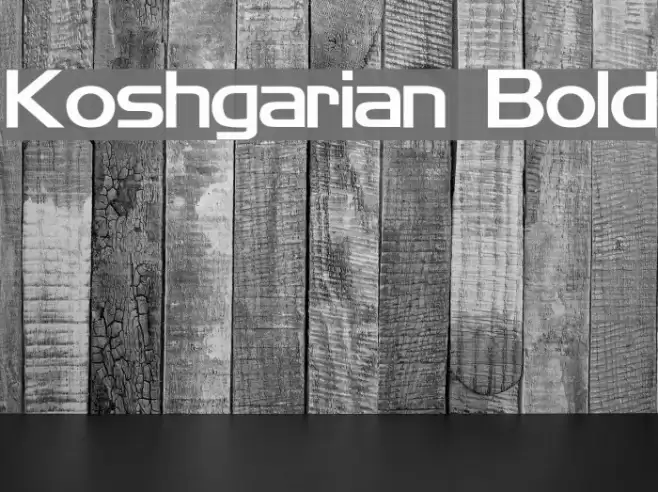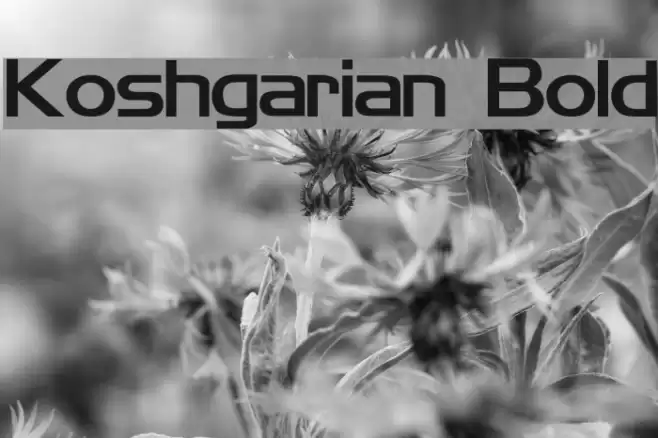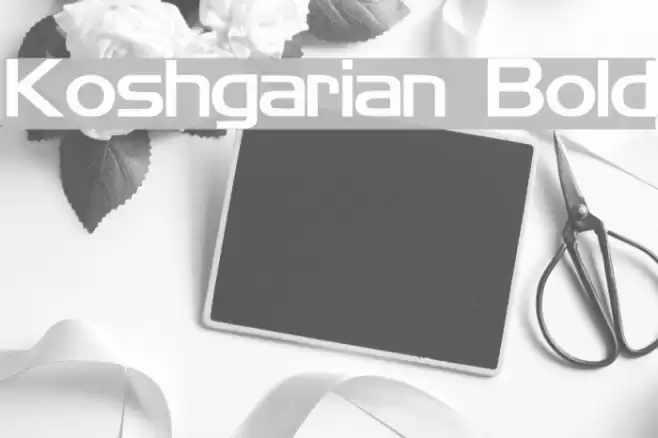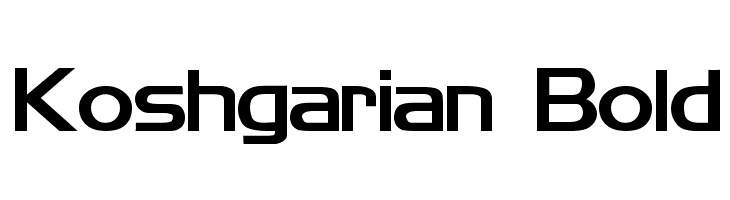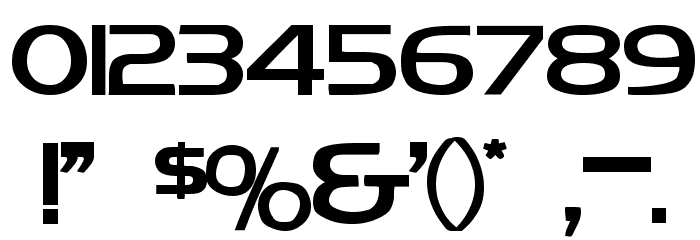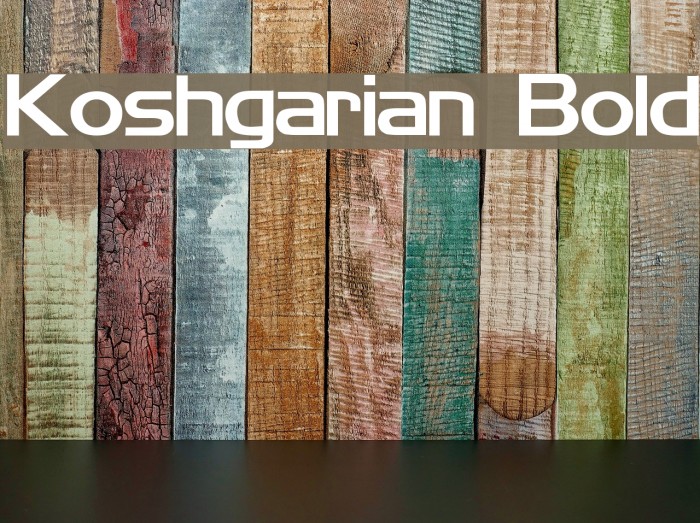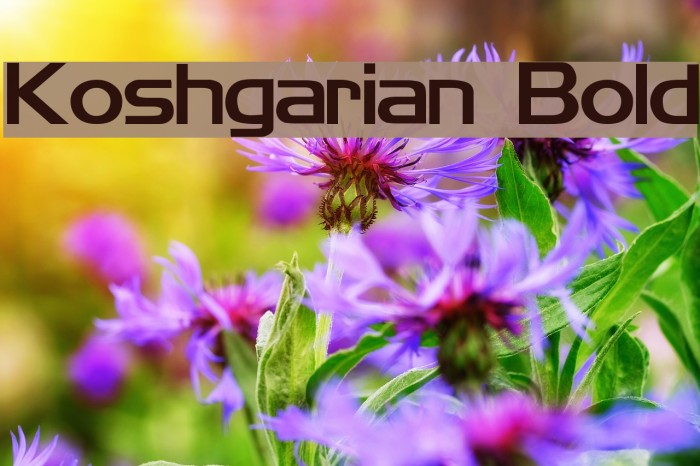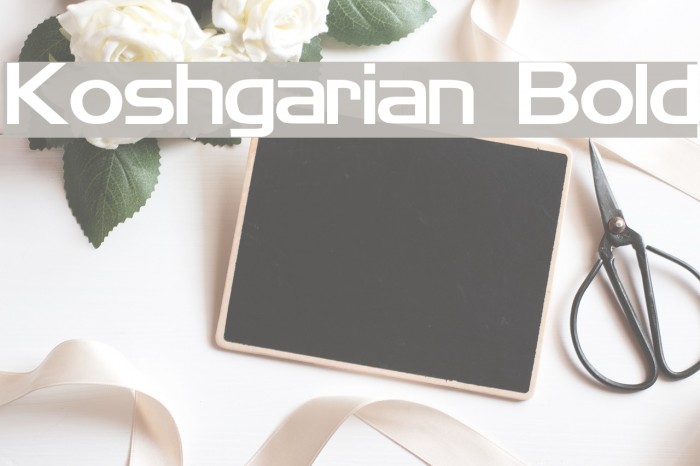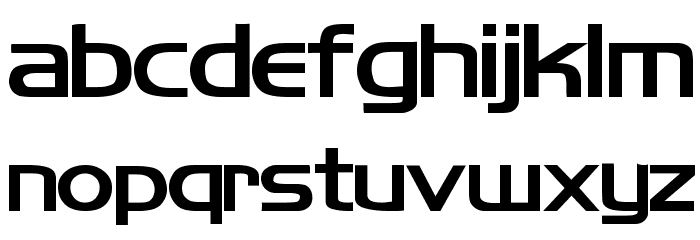
Koshgarian Bold Font
Koshgarian Bold Description
This font features a bold and modern design with a geometric structure. The characters are well-defined with a consistent stroke width, giving it a clean and contemporary look. The uppercase letters are slightly wider, providing a strong presence, while the lowercase letters maintain a balanced proportion. The numerals are distinct and easily readable, complementing the overall style. Special characters are designed with the same attention to detail, ensuring uniformity across all glyphs. This font is ideal for projects that require a modern and assertive typeface.
A bold, modern font with a geometric and clean design from Uncategorized fonts.
- Proposed Projects: Ideal for branding, headlines, posters, and digital media that require a strong and modern typeface.
- Use Case: Headlines, Logos, Branding